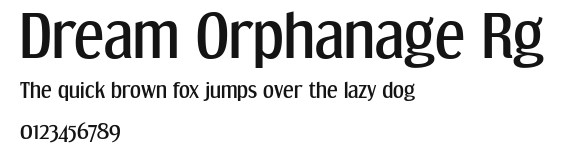
• Font Name: Dream Orphanage Rg
• Designer: Ray Larabie
• Description: Kerning and Languages by Chikako Larabie.
About Dream Orphanage Rg.ttf
Dream Orphanage Rg.ttf is a modern, elegant sans-serif font designed for ultimate readability and visual harmony. Perfect for branding, headlines, web design, and print materials.